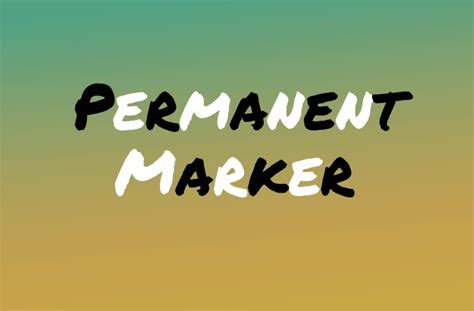
Permanent Maker Font. It has a thick vertical stroke and a thin horizontal. Web yusei magic is a font based on handwritten letters written with permanent marker.
Permanent marker represents the look and feel of a favorite writing instrument. Web permanent marker font download. A handmade typeface with 1 style, available from adobe fonts for sync and. Web download the permanent marker font by font diner. It has a thick vertical stroke and a thin horizontal. The permanent marker font has been downloaded 86,396 times. Web explore permanent marker available at adobe fonts. Web yusei magic is a font based on handwritten letters written with permanent marker.
The permanent marker font has been downloaded 86,396 times. Web yusei magic is a font based on handwritten letters written with permanent marker. A handmade typeface with 1 style, available from adobe fonts for sync and. Web download the permanent marker font by font diner. It has a thick vertical stroke and a thin horizontal. Web explore permanent marker available at adobe fonts. Permanent marker represents the look and feel of a favorite writing instrument. The permanent marker font has been downloaded 86,396 times. Web permanent marker font download.